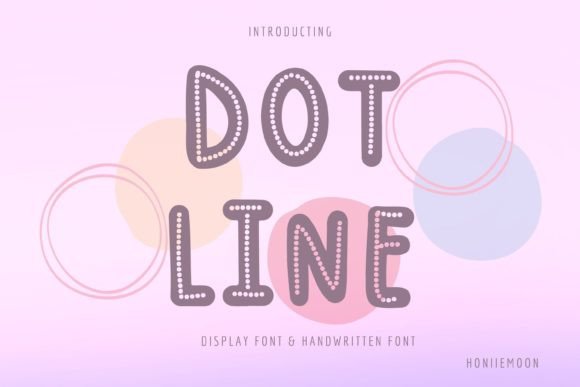
Embrace the Beauty of Expression with Dot Line Font: A Typographic Masterpiece for Fashionistas
Journey into the world of Dot Line font, a display font that exudes charm and vivacity, inviting you to express your creativity in captivating ways. Inspired by the vibrant energy of the fashion industry, Dot Line dances across your designs like a playful melody, adding a touch of whimsy and delight to every letter.
As you explore the depths of Dot Line's glyphs, you'll discover a symphony of curves and lines, each stroke carefully crafted to evoke a sense of joy and individuality. Whether you're designing logos, creating social media graphics, or crafting eye-catching headlines, Dot Line's infectious energy will transform your words into captivating works of art.
Immerse yourself in a kaleidoscope of colors as Dot Line brings your designs to life. Experiment with a palette of hues, from vibrant pinks and oranges to soothing blues and greens, and watch as your creations burst forth with personality. Let Dot Line be your artistic muse, inspiring you to push the boundaries of your imagination and create designs that leave an unforgettable impression.
Join the ranks of fashion-forward designers and tastemakers who have embraced the allure of Dot Line. Allow this extraordinary font to elevate your work, captivating audiences with its infectious charm and playful spirit. As you witness the transformative power of Dot Line, you'll realize that fonts are not mere tools; they are expressions of your creativity, connecting you with your audience on a deeper level.